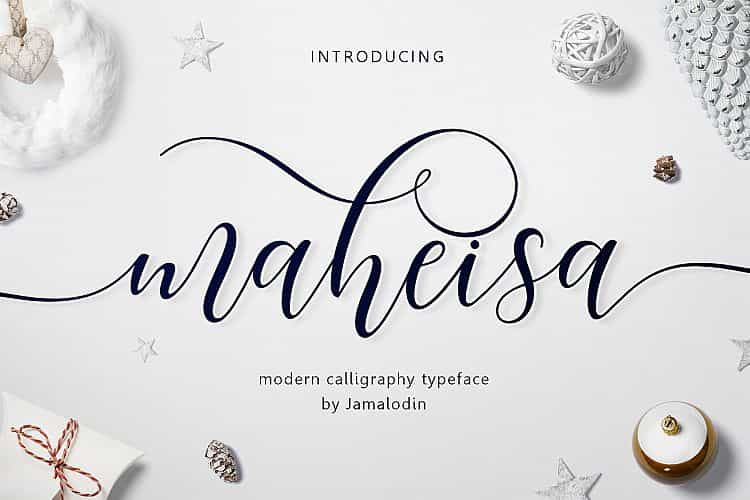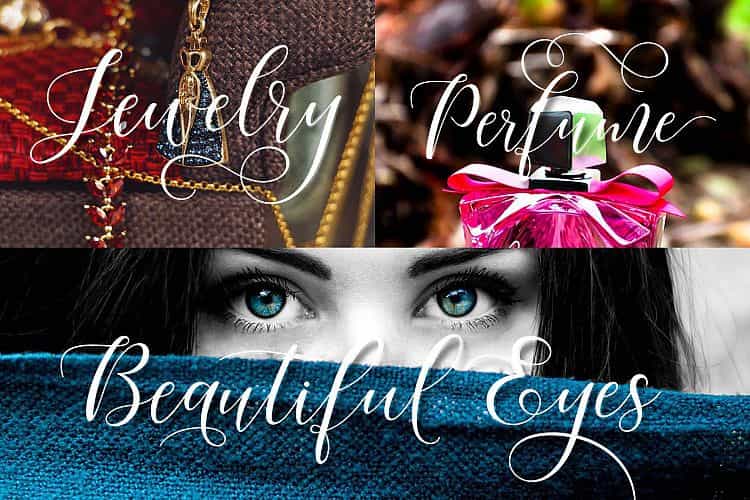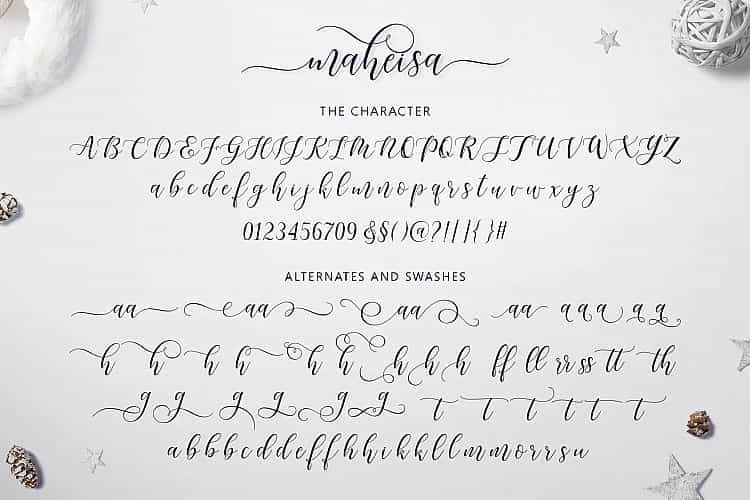
Introducing Maheisa Font. It appears to be a modern script font; as far as each of the letters are concerned they have been sized and shaped to make your text look beautiful. With modern script style this font will perfect for many different project, example: Message, greeting card invitation card, poster, name card, quotation, blog header, branding, logo, fashion, dress, letter, stationery and so much more.